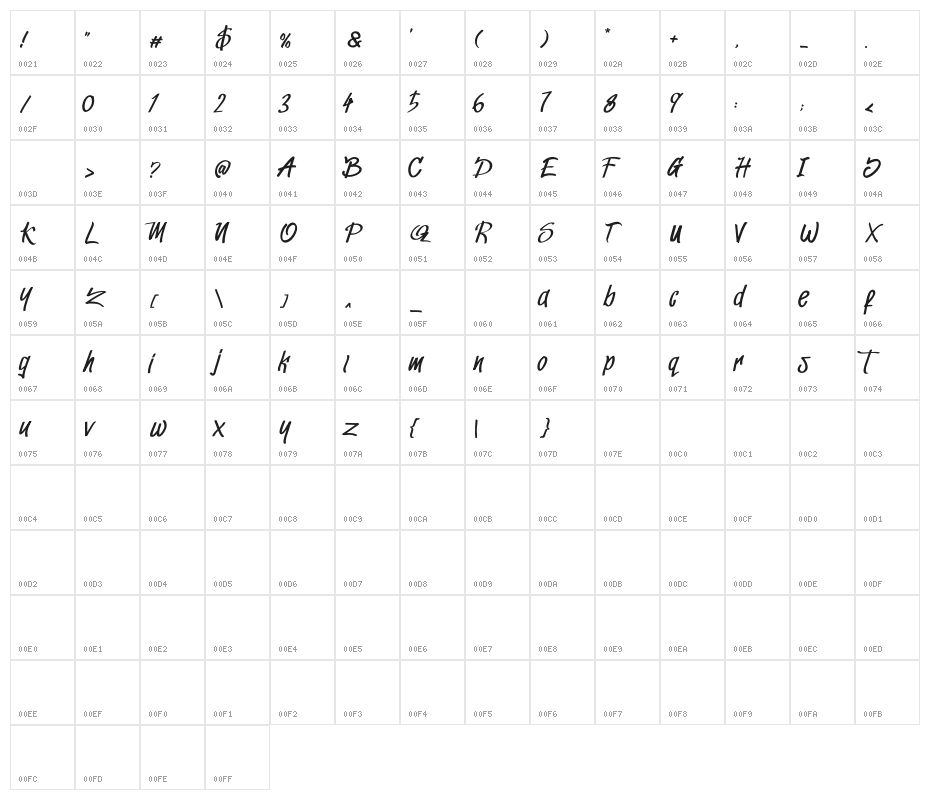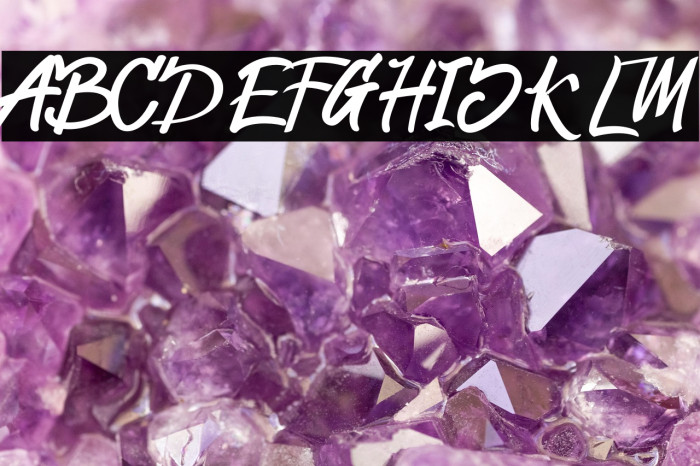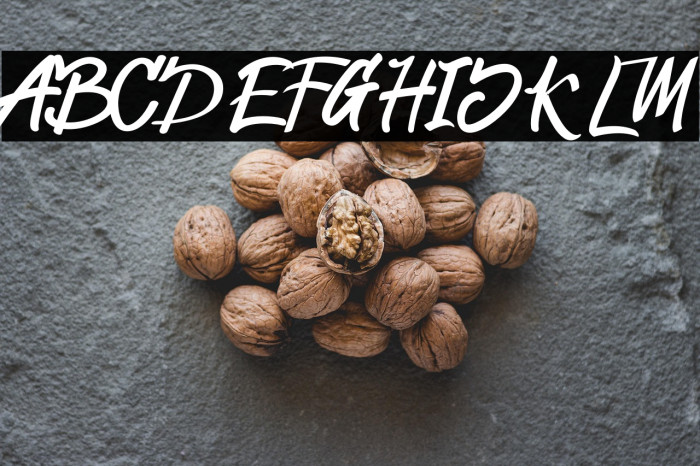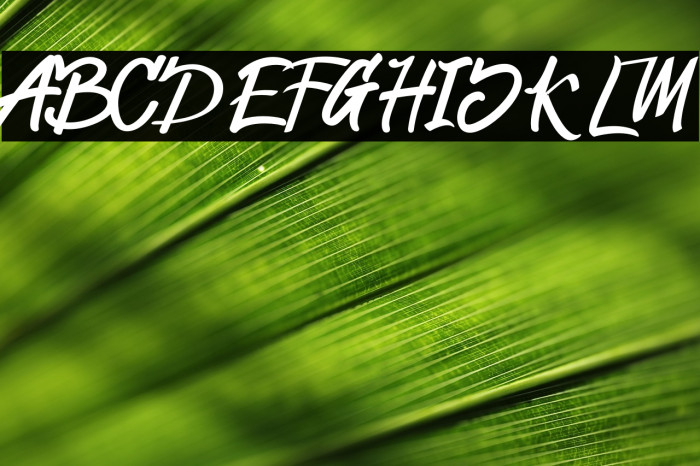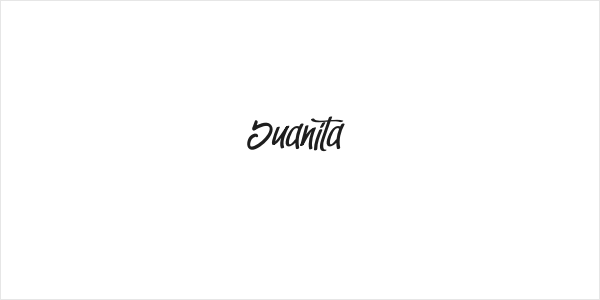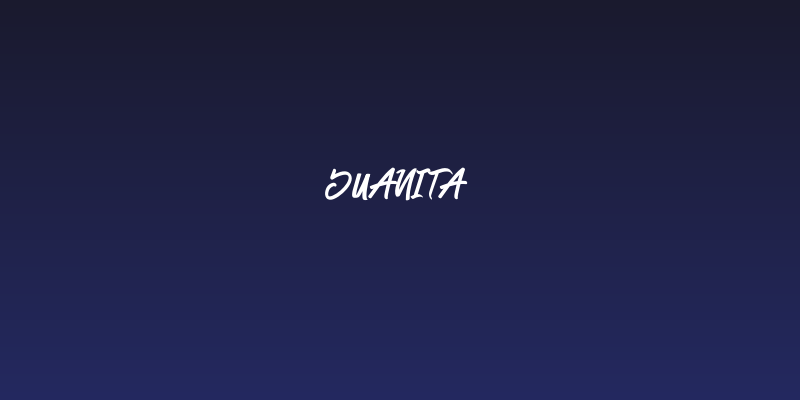
Juanita Font
Juanita Description
This font features a dynamic and energetic script style, characterized by its fluid and cursive letterforms. The uppercase letters exhibit a bold and sweeping motion, while the lowercase letters maintain a consistent flow with a slightly more restrained appearance. The numerals and special characters complement the overall aesthetic, adding a touch of flair without compromising readability. The strokes vary in thickness, providing a medium contrast that enhances the font's lively and expressive nature. Ideal for projects that require a personal and artistic touch, this font stands out with its unique charm.
Use CaseLogos, Headlines, Artistic projects
Proposed ProjectsIdeal for branding, invitations, greeting cards, and artistic projects.